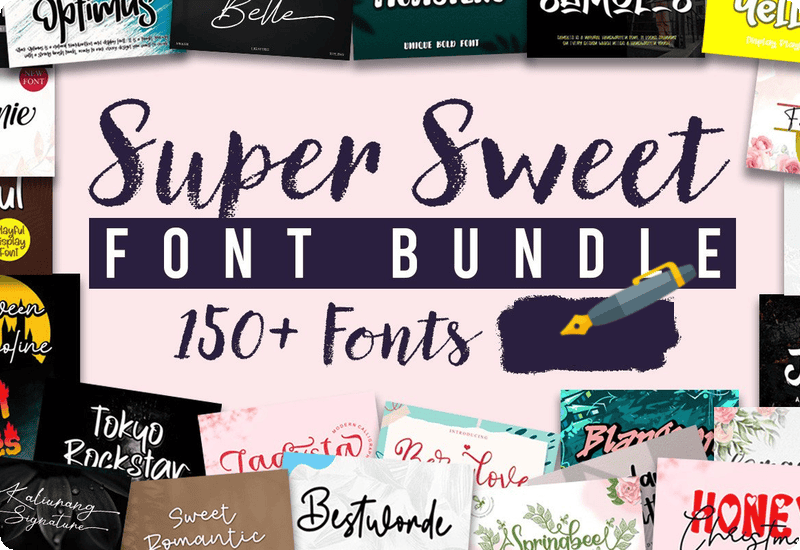
Introducing the Super Sweet Font Bundle, featuring 167 exquisite fonts perfect for any project. Whether you’re designing for the holidays, creating professional graphics, or adding a unique flair to personal projects, this bundle provides all the tools you need. With a range from elegant scripts to playful displays, each font is meticulously crafted to give your work a distinctive edge.
Premium Fonts in this bundle:
- Christmas Shine Script & Handwritten Font
- Spring Welcome Script & Handwritten Font
- Evelyne Script & Handwritten Font
- Sweet Mango Sans Serif Font
- Motherblood Script & Handwritten Font
- Christmas Beautiful Script & Handwritten Font
- My First Display Font
- Christmas Stars Polices d’Affichage Police
- South Town Script & Handwritten Font
- Summer Holiday Display Font
- Bitterlove Fontes Script Fonte
- Homeland Skript-Schriftarten Schriftart
- Ghost Flames Decorative Font
- Shining Love Display Font
- Hay Ghost Decorative Font
- Playful Type Display Fonts Font
- Christmas Winter Fontes Script Fonte
- Spooky Dark Decorative Font
- Wistha Belle Script & Handwritten Font
- Christmas Craft Decorative Font
- Besthie Script & Handwritten Font
- Home Rock Script & Handwritten Font
- Christmas Family Display Font
- Wolfriend Script & Handwritten Font
- Moonlight Script & Handwritten Font
- Black Mouse Polices Sérif Police
- Halloween Monoline Script & Handwritten Font
- Baby Moala Script & Handwritten Font
- Tokyo Rockstar Script & Handwritten Font
- Alitha Christmas Script & Handwritten Font
- Rich Monster Display Font
- Bestworde Script & Handwritten Font
- Lovebird Script & Handwritten Font
- Warilah Script & Handwritten Font
- Salminah Script & Handwritten Font
- Spider Ghost Display Fonts Font
- Firstlove Script & Handwritten Font
- Christmas Leaf Display Font
- Gabriella Script & Handwritten Font
- Vastika Script & Handwritten Font
- Christmas School Display Fonts Font
- Rangers Display Font
- Biglove Script & Handwritten Font
- Fishbone Fontes Script Fonte
- Jumpheart Script & Handwritten Font
- Ladysta Script & Handwritten Font
- Manover Display Font
- Jordan Smith Script & Handwritten Font
- Magnolie Script & Handwritten Font
- Berrylove Script & Handwritten Font
- Bestday Script & Handwritten Font
- Aryaka Script & Handwritten Font
- Christiano Script & Handwritten Font
- Easter Story Script & Handwritten Font
- Violethe Display Font
- Anybella Script & Handwritten Font
- Brilliana Monogram Decorative Font
- Halloween Witches Display Font
- Sweet Romantic Script & Handwritten Font
- Honey Christmas Display Font
- Springbee Script & Handwritten Font
- Black Hulk Display Font
- Rafoxy Fontes Script Fonte
- Learn Write Script & Handwritten Font
- Early Christmas Script & Handwritten Font
- Geollitta Script & Handwritten Font
- Somelove Script & Handwritten Font
- Raffinha Script & Handwritten Font
- Thanks Mom Script & Handwritten Font
- Christmas Weather Script & Handwritten Font
- Bristhonie Fuentes Caligráficas Fuente
- Black Optimus Script & Handwritten Font
- Christmas Chocho Display Font
- Sweet Christmas Script & Handwritten Font
- South Jakarta Script & Handwritten Font
- Jusline Script & Handwritten Font
- Christmas Heart Script & Handwritten Font
- Monstero Display Font
- Orange Pumpkin Script & Handwritten Font
- Rasque Serif Serif Font
- Christhine Display Font
- Lightning Christmas Script & Handwritten Font
- Christ White Script & Handwritten Font
- Angolla Display Font
- Samoles Script & Handwritten Font
- Allenisa Script & Handwritten Font
- Aaron Ramsey Script & Handwritten Font
- Bat Ghost Display Font
- Playful Yellow Script & Handwritten Font
- Betteryou Script & Handwritten Font
- Something Shine Script & Handwritten Font
- Rooters Display Font
- Christmas Weekday Display Font
- Beautiful Variella Script & Handwritten Font
- Valesta Script & Handwritten Font
- Snowy Winter Display Font
- Stars Borneo Display Font
- Flowery Sans Serif Font
- Agathis Script & Handwritten Font
- Antigo Serif Font
- Kaliurang Signature Script & Handwritten Font
- Moonthe Script & Handwritten Font
- Blangkon Script & Handwritten Font
- Angela Christmas Script & Handwritten Font
- Rainbow Christmas Script & Handwritten Font
- Bunnyheart Script & Handwritten Font
- Heartline Script & Handwritten Font
- Christmas Honey Script & Handwritten Font
- Singer Story Script & Handwritten Font